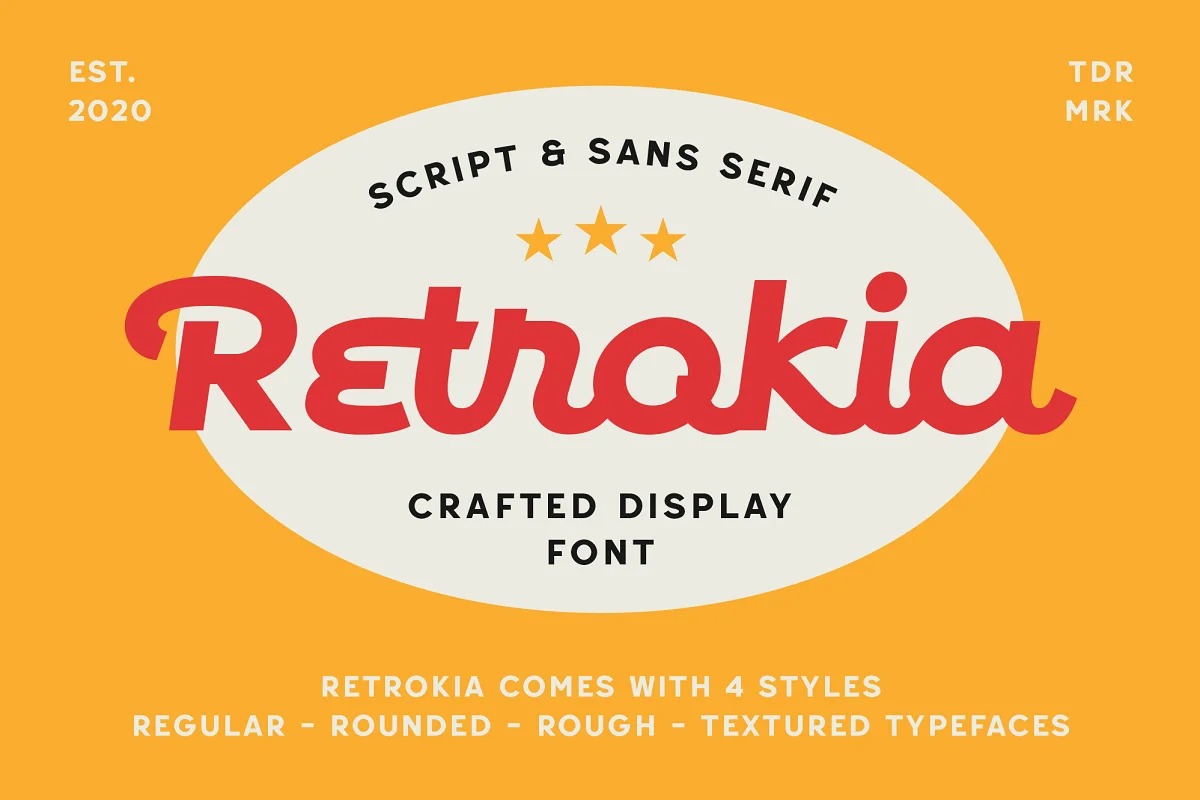
Retrokia Font
Retrokia Script Font
This is a hand-drawn retro script typeface from designer Edignwn Type. These collections contain script and sans serif font. Every font comes with 4 style typefaces (regular, rounded, rough and textured). This script font includes some alternates and ligatures. The Retrokia matches apply in some designs such as the logo, poster, label, badge, packaging, t-shirt, branding, quotes and more custom design.